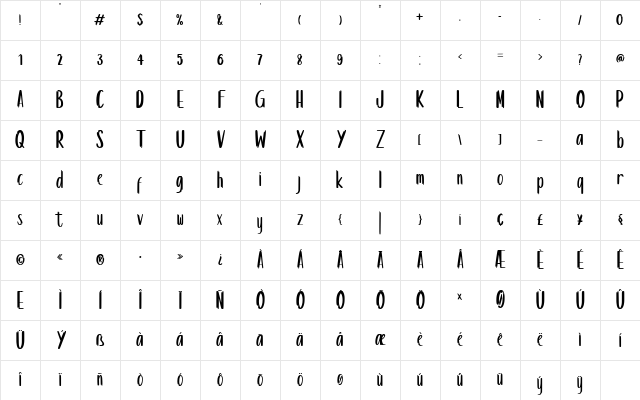
Complete Kinderjoe Regular glyph index. Displaying only characters natively supported by Kinderjoe Regular font.
Kinderjoe is a composed and adaptable typeface that performs quietly and consistently across a wide range of design contexts.